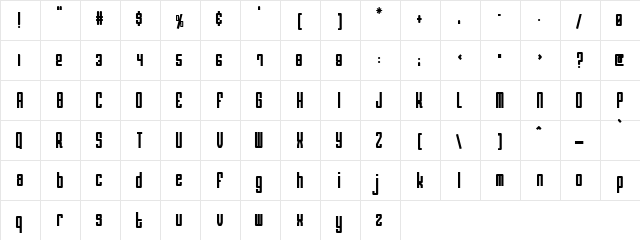
Steady Wipro Regular
Steady Wipro is a composed and adaptable typeface that performs quietly and consistently across a wide range of design contexts.